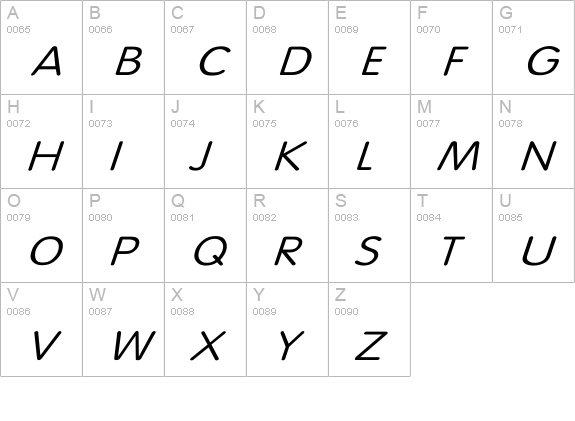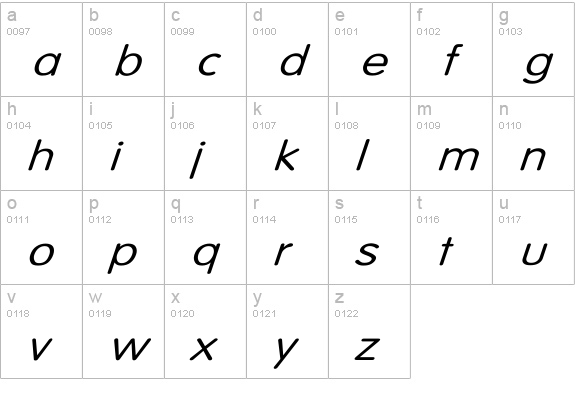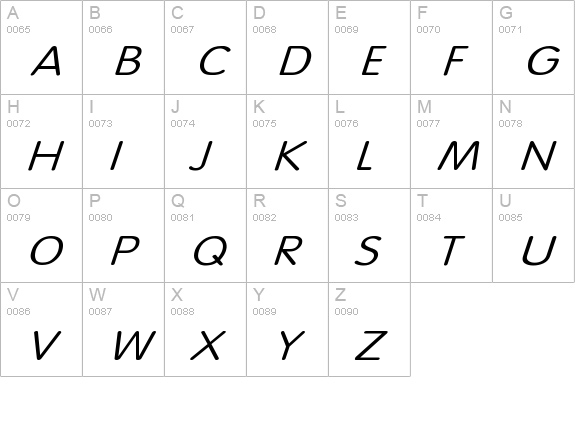
Vogue-Normal Wd Italic is the standard, neutral, italic variant in the Vogue typeface family \xE2\x80\x94 well suited to general body text, paragraphs, and standard typographic work.
Introducing Vogue-Normal Wd Italic, a font that embodies elegance and style. With its sleek and sophisticated design, this typeface is perfect for adding a touch of glamour to any project. The italicized variation adds a sense of movement and grace, making it particularly suitable for fashion, beauty, and lifestyle-related content. What sets Vogue-Normal Wd Italic apart is not only its impeccable design, but also the fact that it is free to download. Yes, you read that right – this stunning font can be yours without spending a penny! Thanks to FontsMarket.com, you can easily access and download Vogue-Normal Wd Italic with just a few clicks. Whether you're a designer, blogger, or simply someone with a passion for aesthetics, Vogue-Normal Wd Italic is a must-have addition to your font collection. Its versatility allows it to shine in a variety of contexts, from branding and logo design to editorial layouts and social media graphics. The italicized style adds a touch of sophistication and uniqueness, making your text stand out from the crowd. The attention to detail in Vogue-Normal Wd Italic is truly remarkable. From the delicate curves of each letter to the balanced spacing and harmonious proportions, every aspect of this font has been meticulously crafted to ensure a visually pleasing result. Its clean lines and refined letterforms contribute to a sense of modernity, making it a timeless choice for any design project. Don't miss out on the opportunity to enhance your work with Vogue-Normal Wd Italic. Its free availability to download at FontsMarket.com makes it easily accessible to designers and enthusiasts alike. Elevate your designs and captivate your audience with the undeniable charm and sophistication of Vogue-Normal Wd Italic.